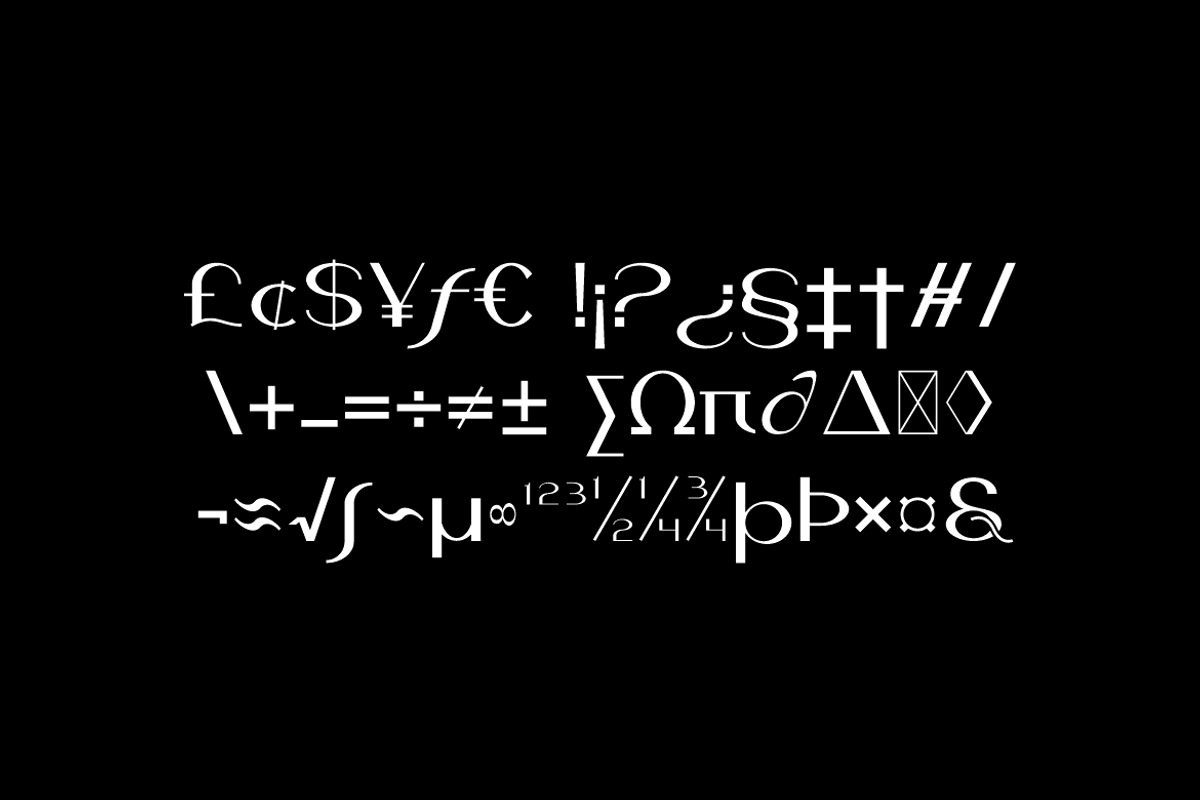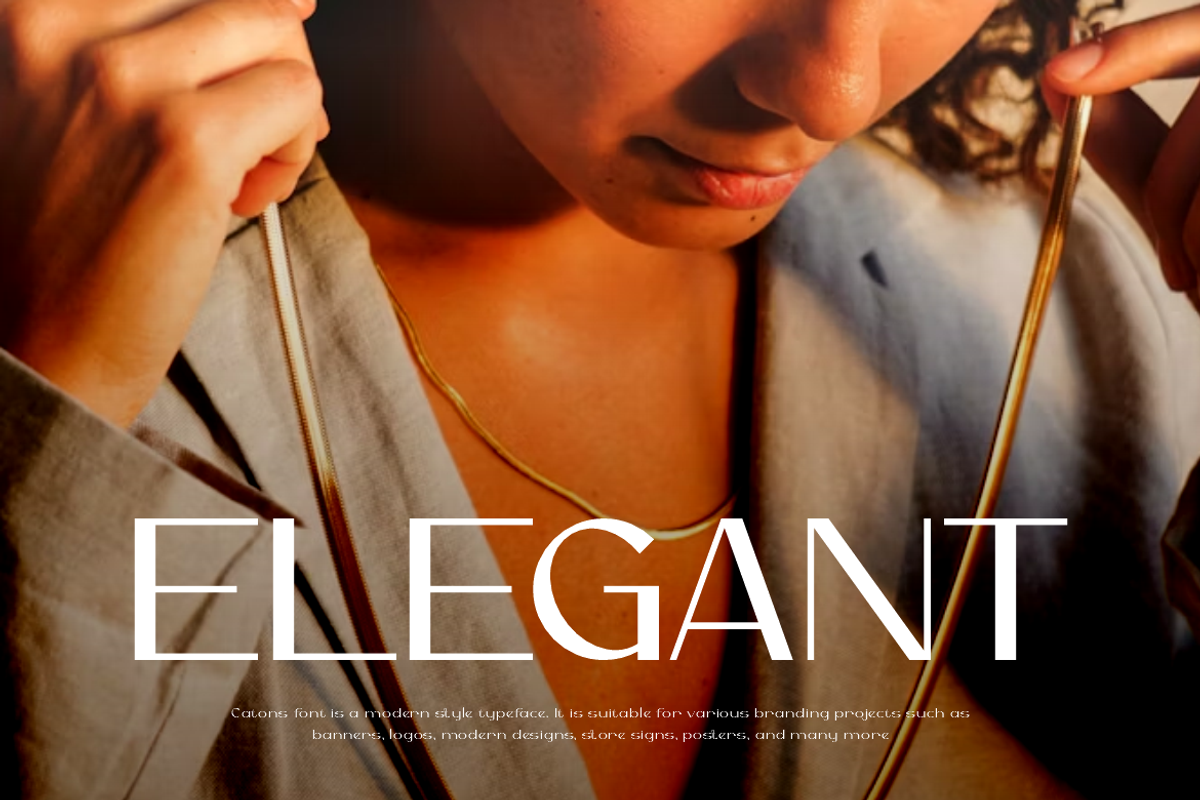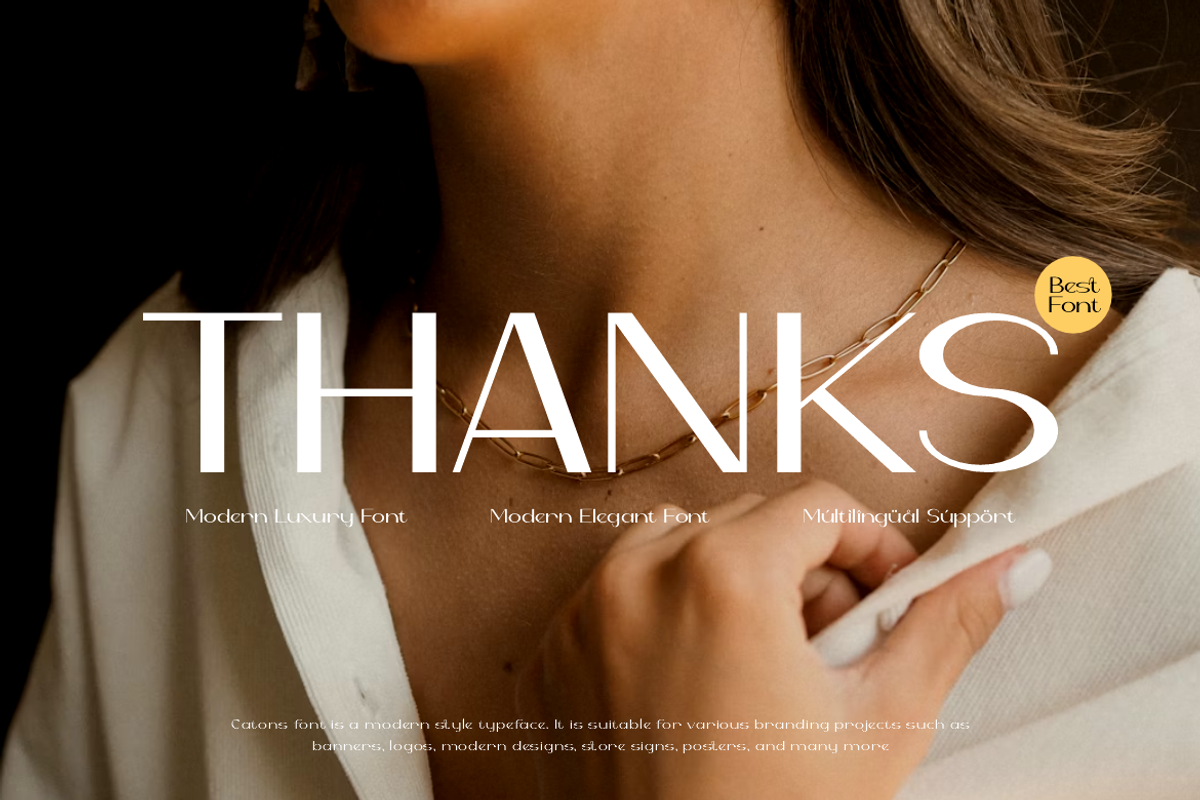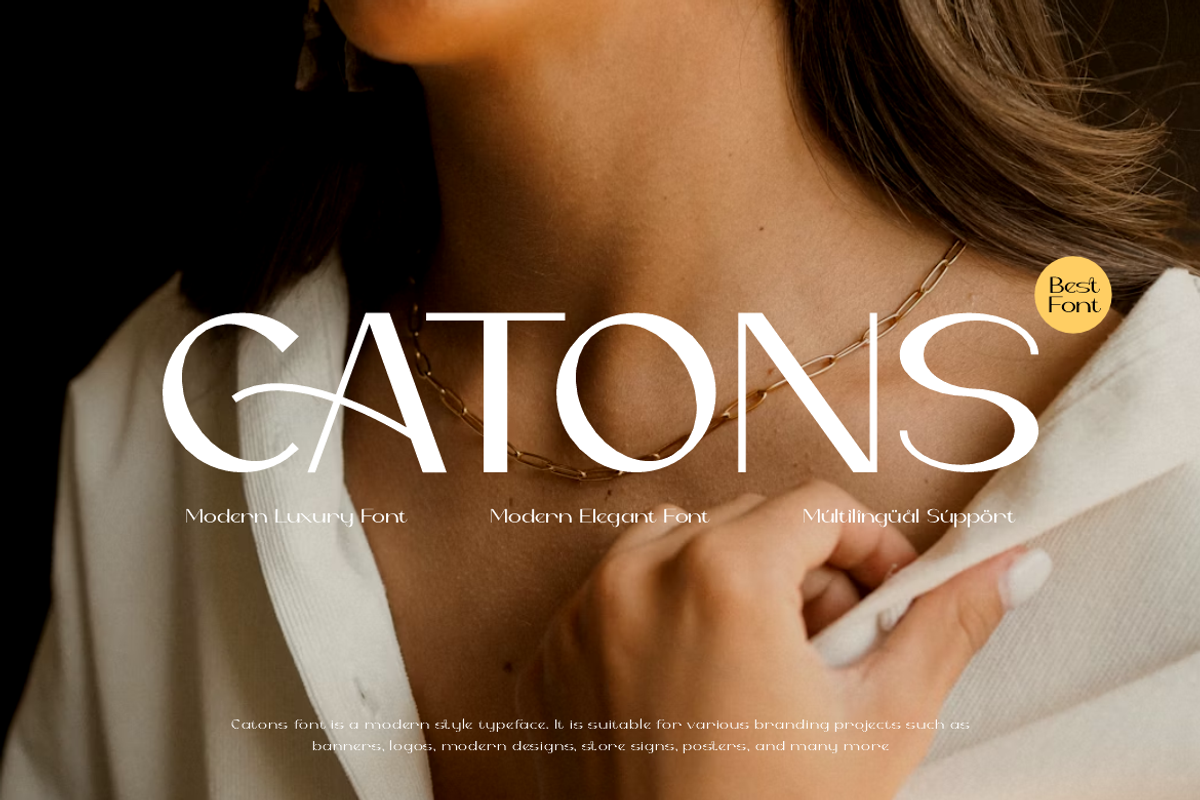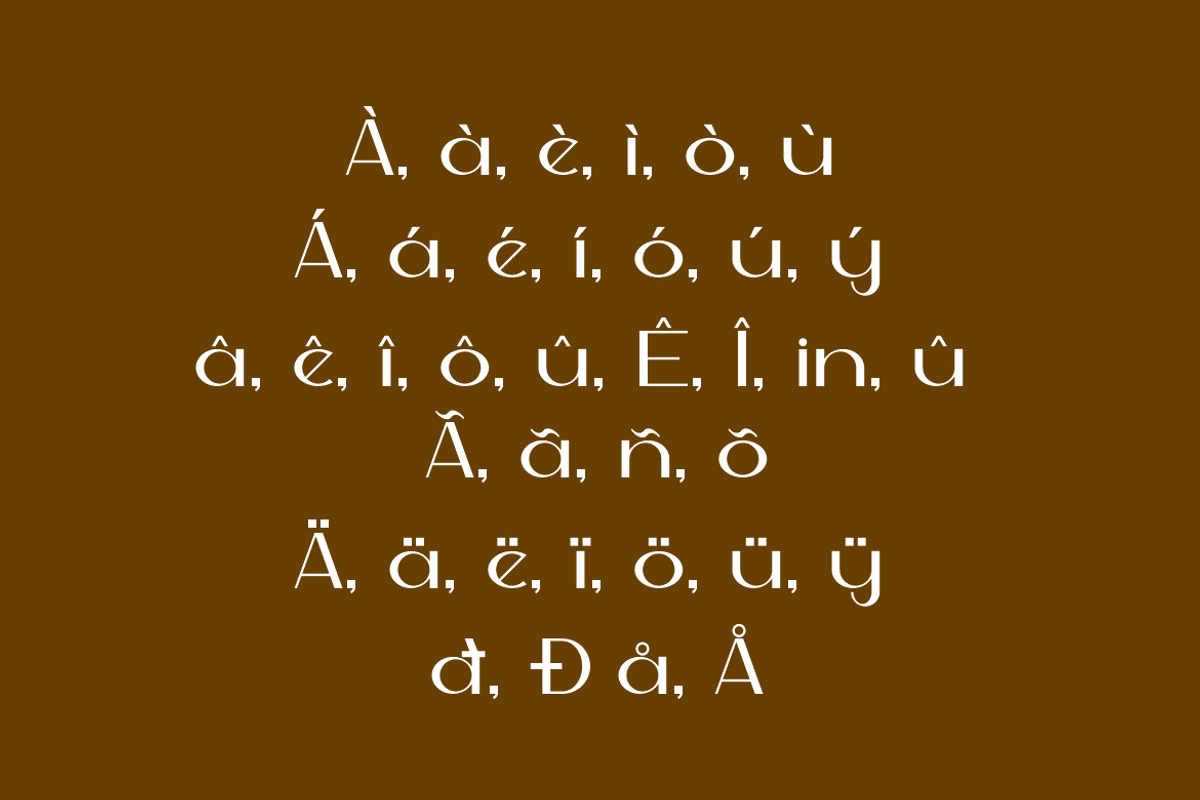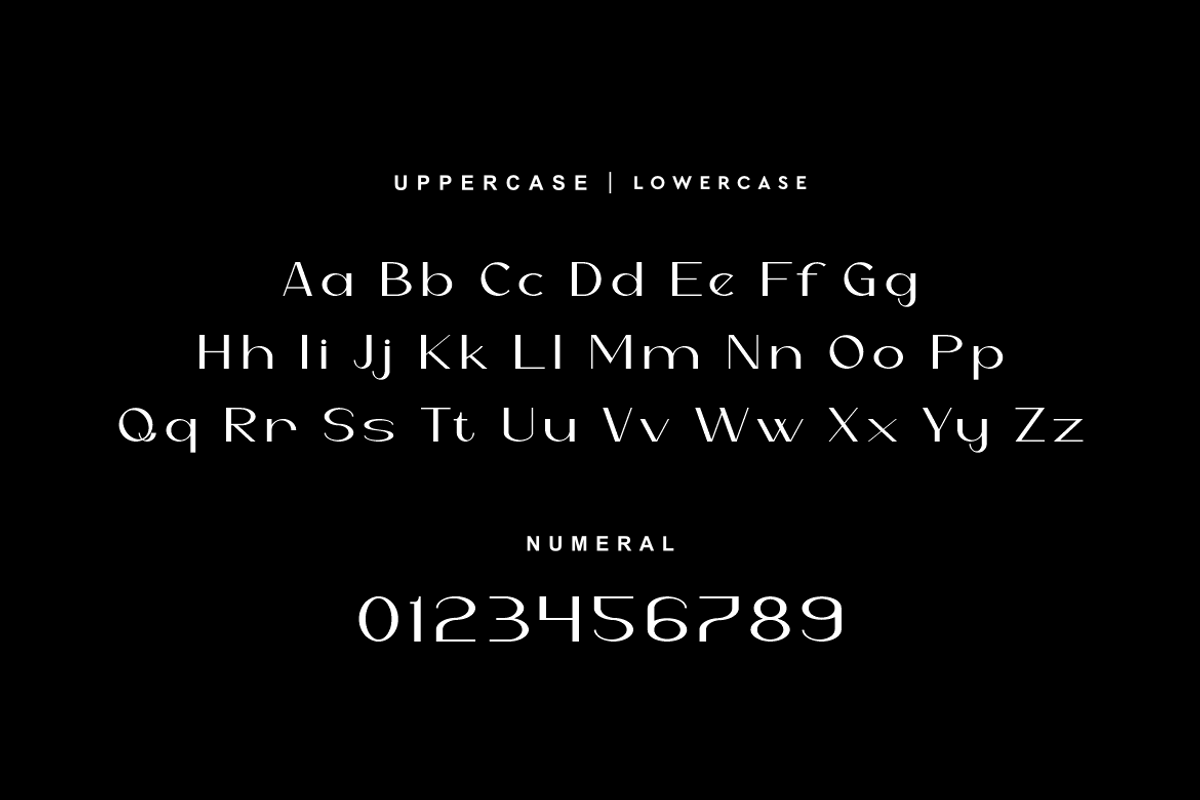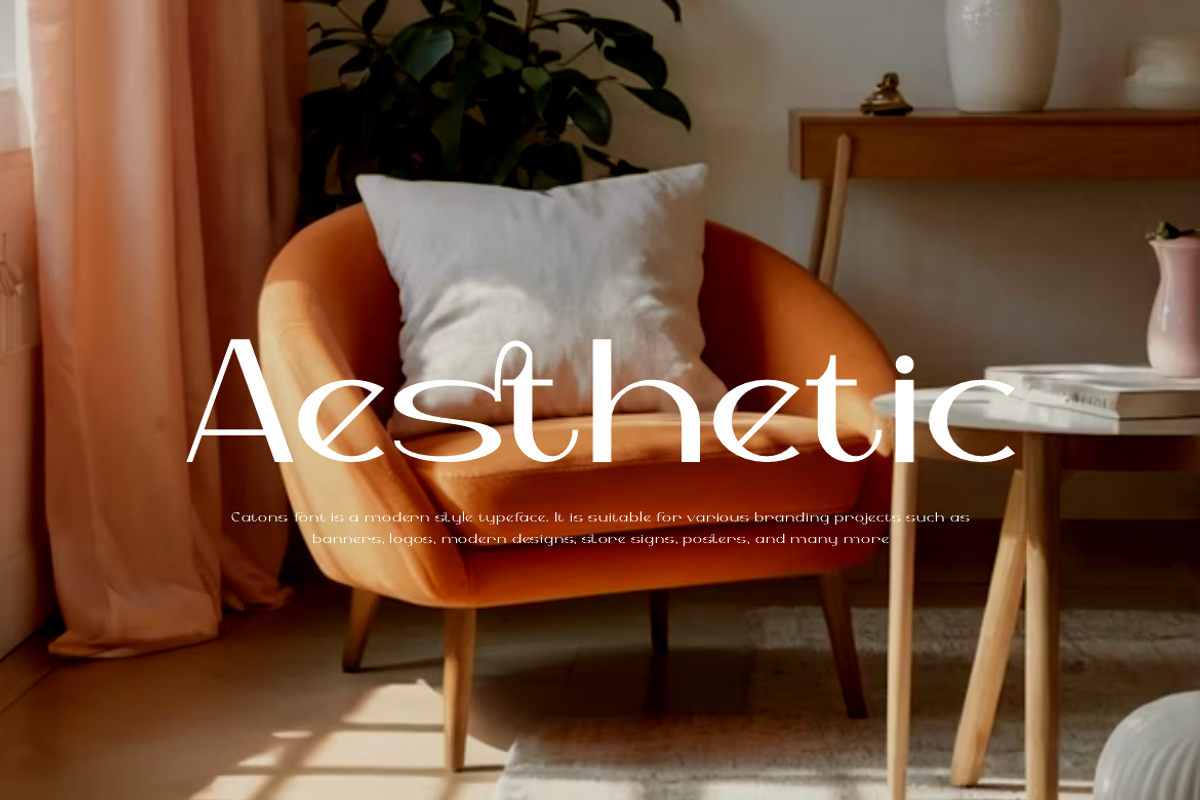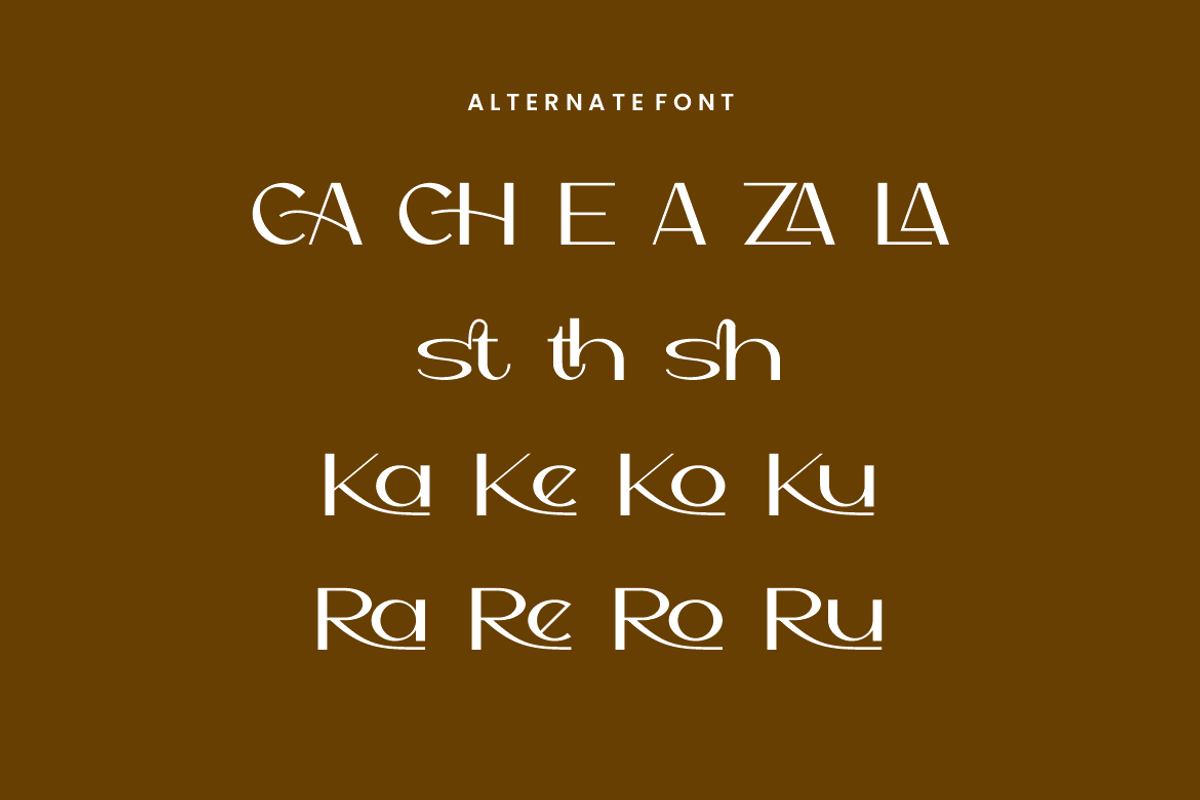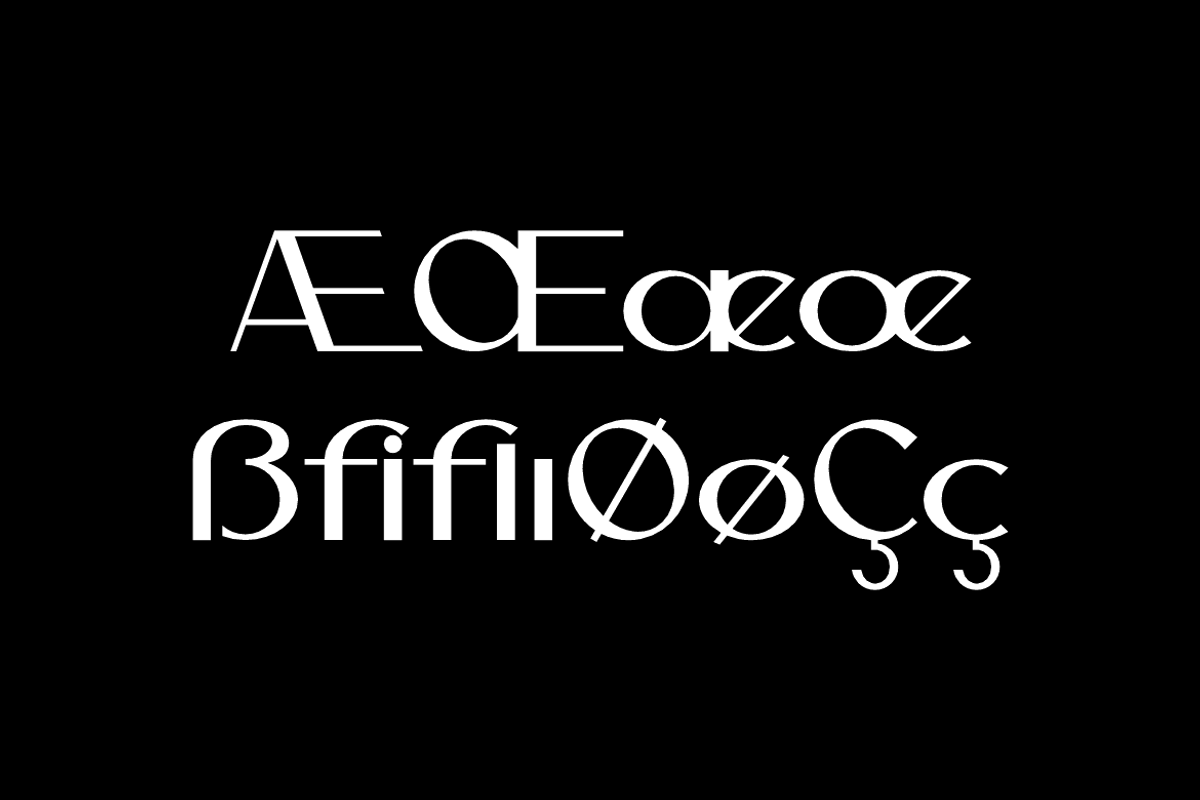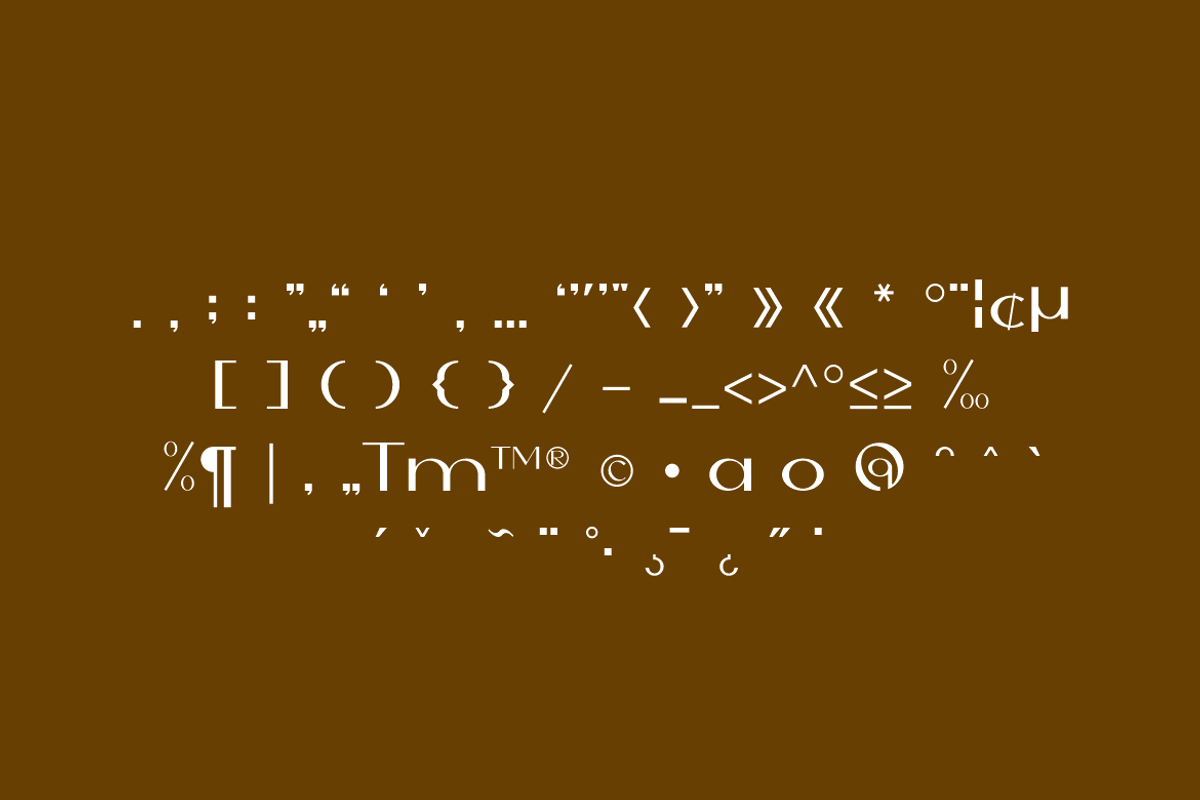
Catons - Modern Minimal Font
Catons Font is a modern and authentic display typeface.
It’s perfect for various branding projects such as logos, modern designs,
and more. This font stands out beautifully in a wide range of contexts.